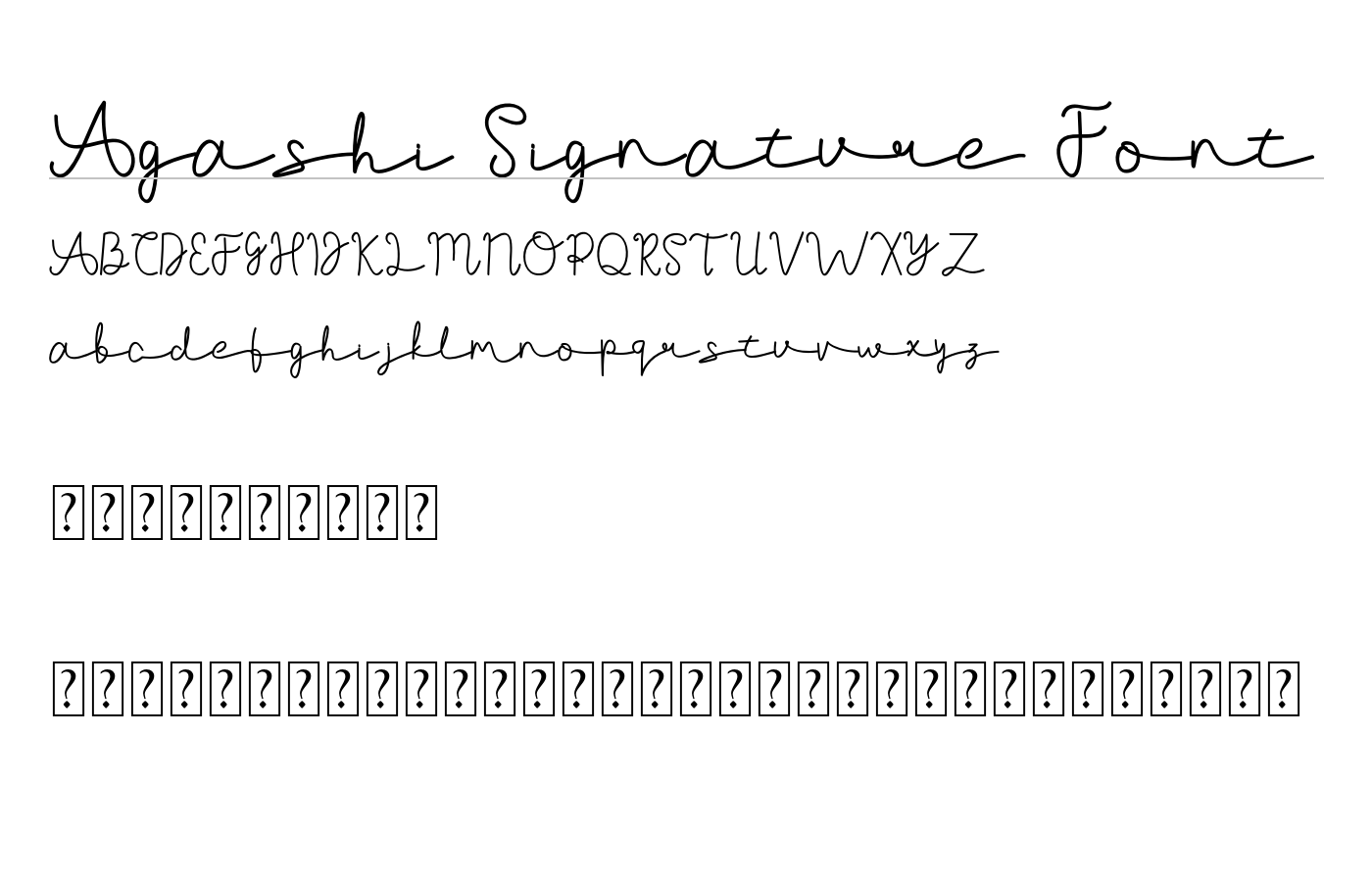
Agashi Signature Font is a delicate, handwritten script that captures the charm of personal handwriting with its slender, flowing lines and elegant loops. It exudes a natural, casual sophistication, making it perfect for branding, invitations, and editorial designs that seek a warm, approachable, yet refined look. This font works well where a stylish, intimate touch is desired, especially in fashion, lifestyle, and creative projects.
Agashi Signature Font
| Font family | Agashi Signature Font |
| Designer | NirmalaGraphics |